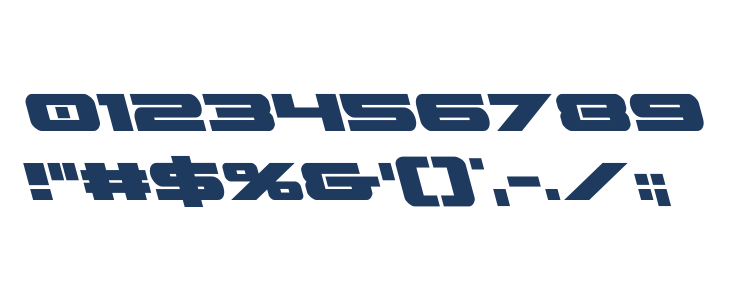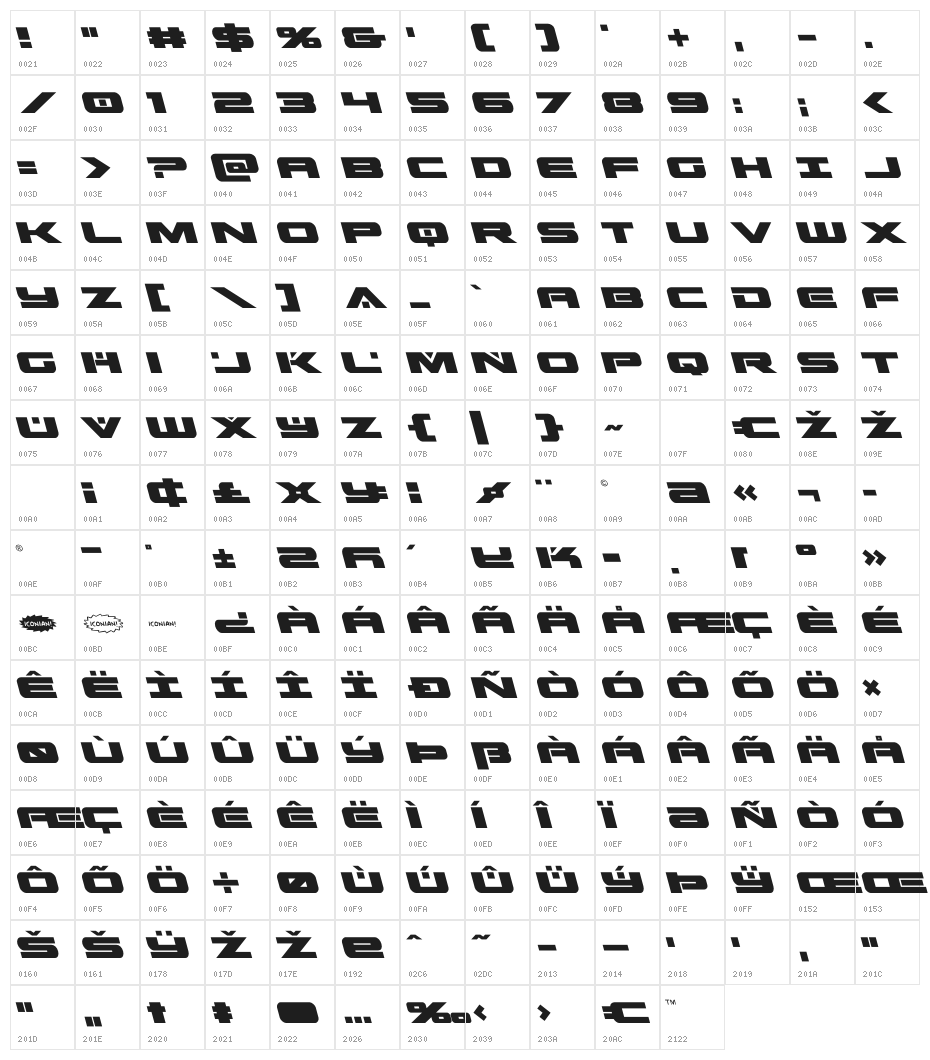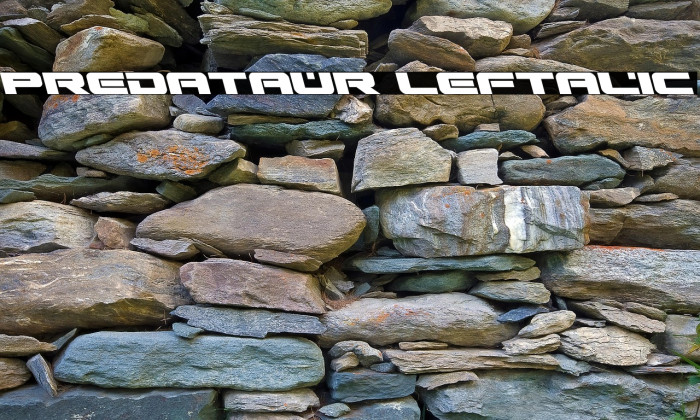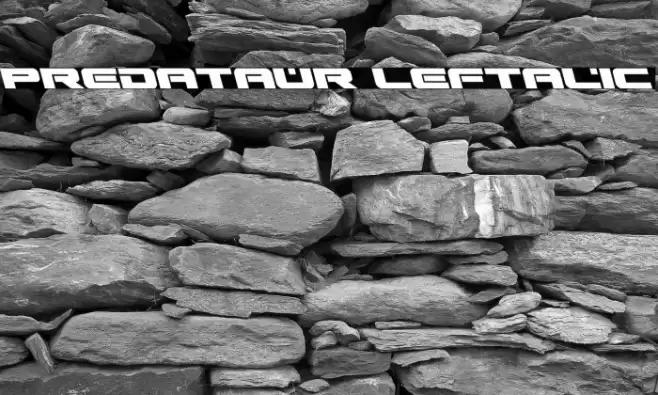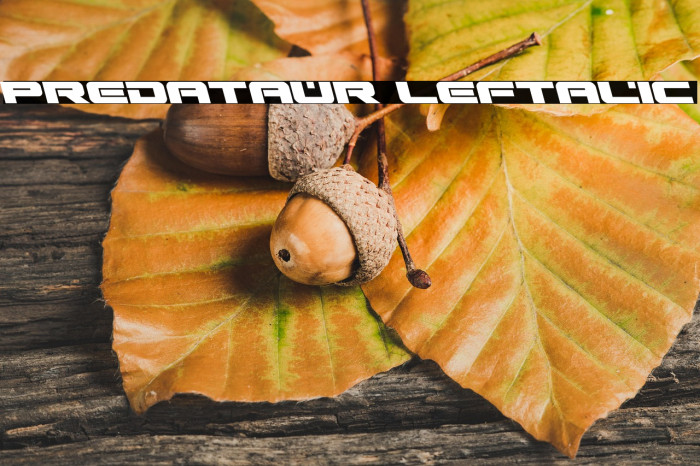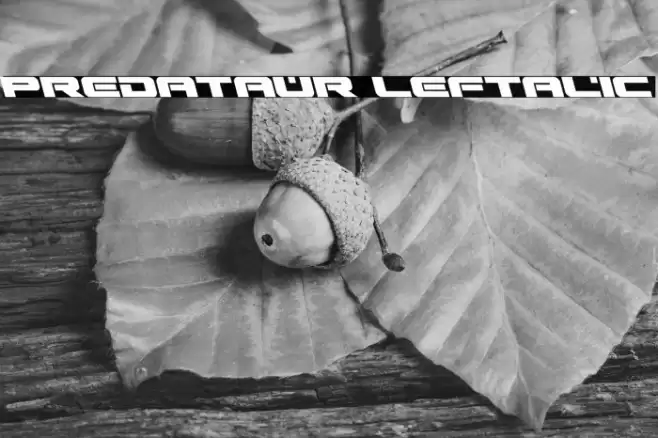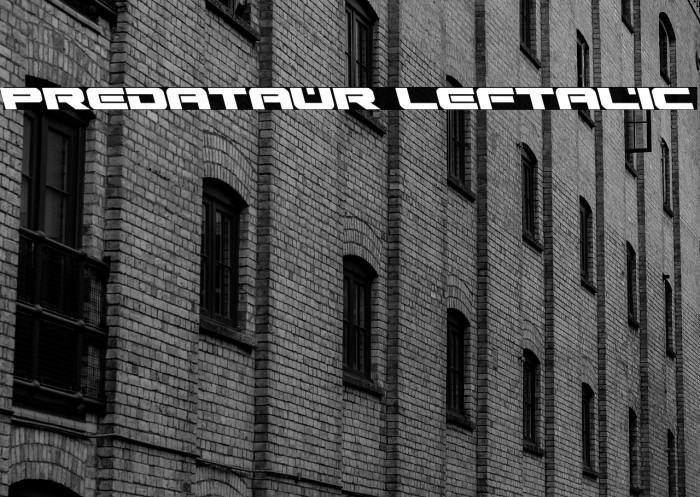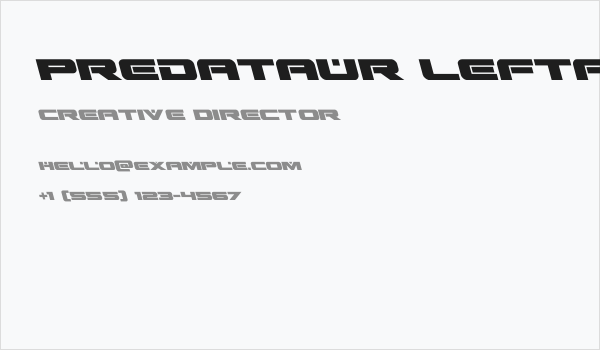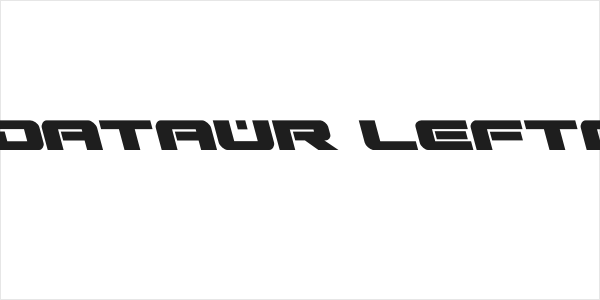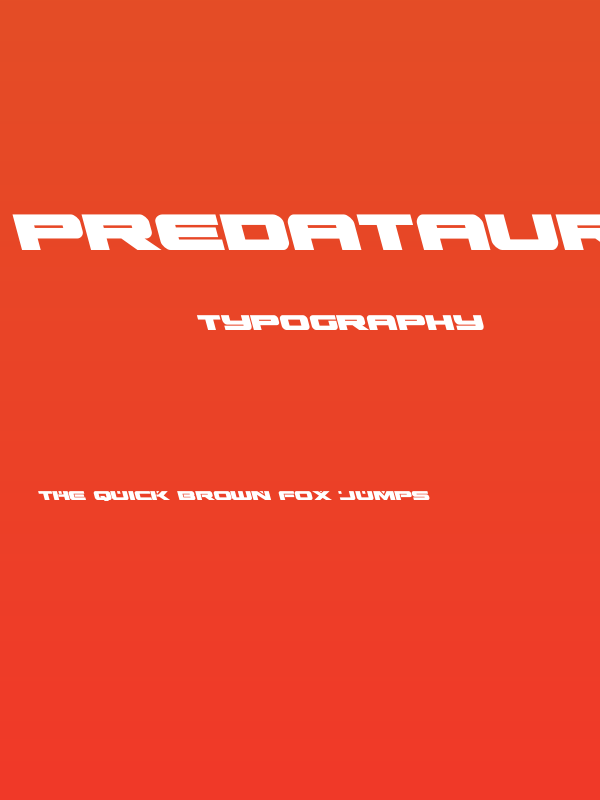
Predataur Leftalic Font
Predataur Leftalic Description
This font features a bold, futuristic design with a distinct slant to the left, giving it a dynamic and forward-moving appearance. The characters are wide and blocky, with sharp angles and a strong geometric influence. The uppercase letters are particularly striking, with a uniform height and consistent weight throughout. The numbers and special characters maintain the same bold and angular style, ensuring a cohesive look across all text elements. This font's unique style makes it ideal for projects that require a modern and edgy aesthetic.
| Proposed Projects | Ideal for sci-fi themed posters, video game titles, tech branding, and modern advertising. |